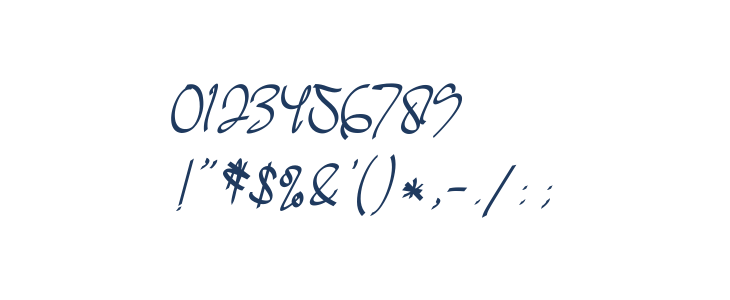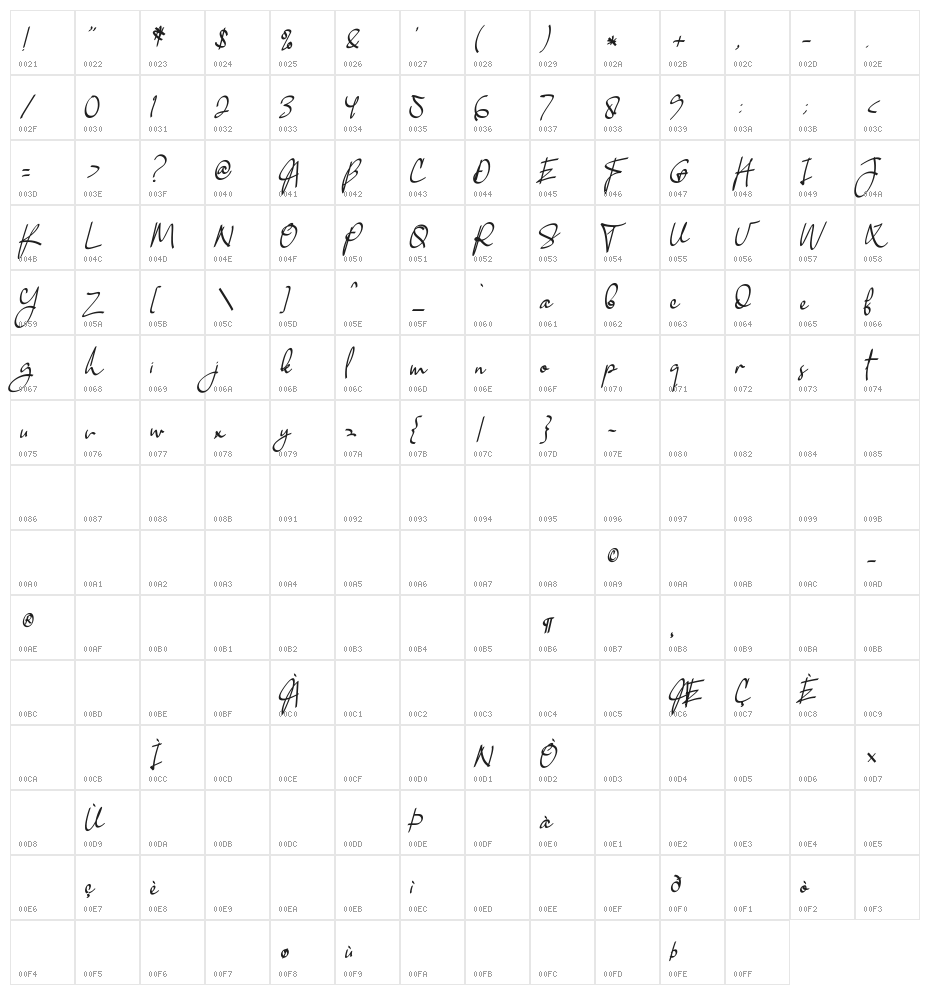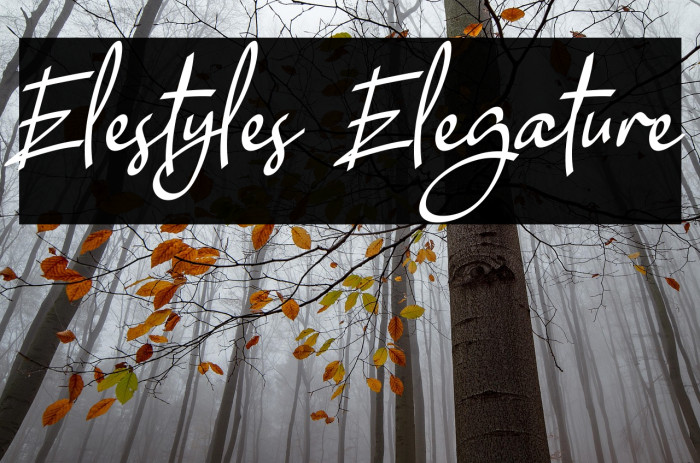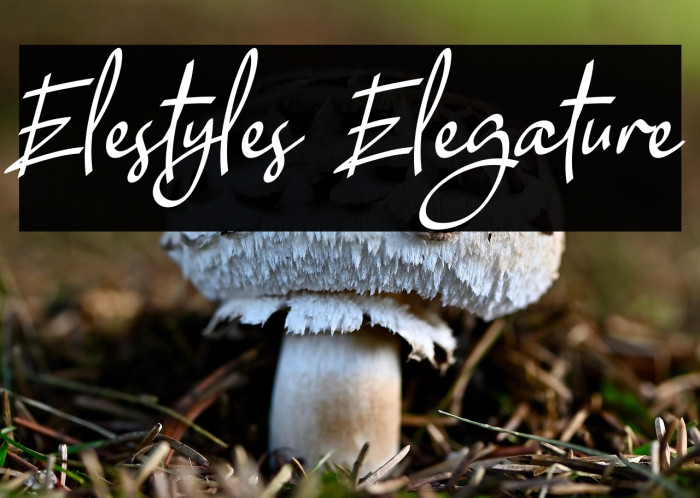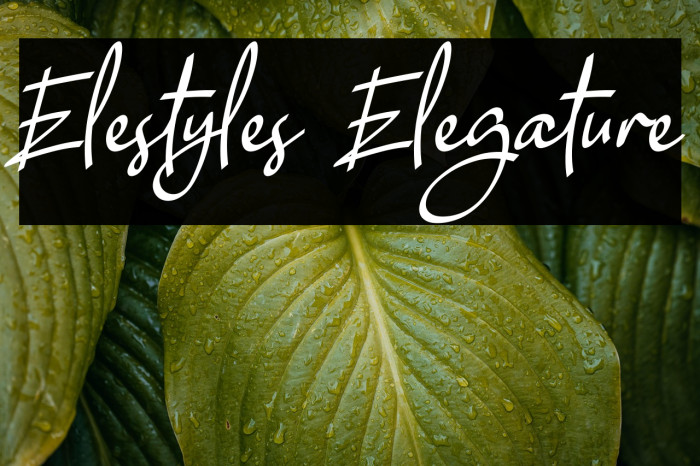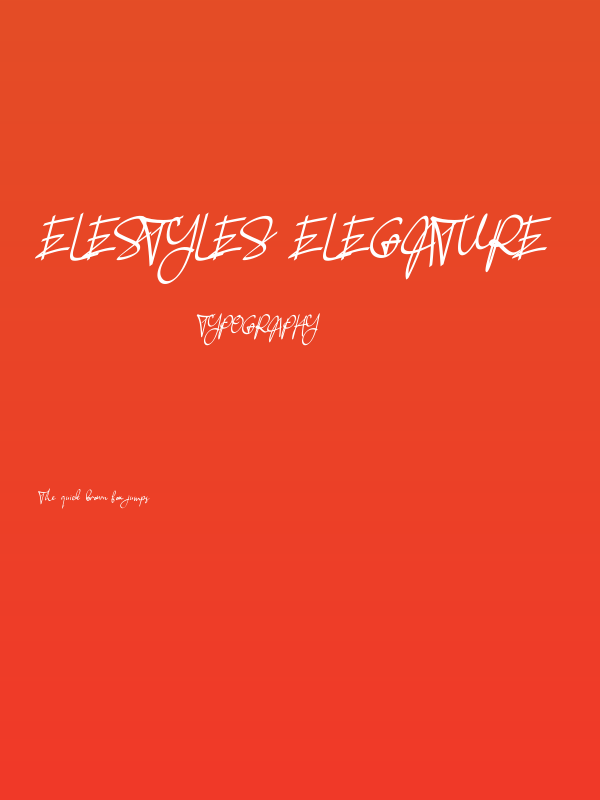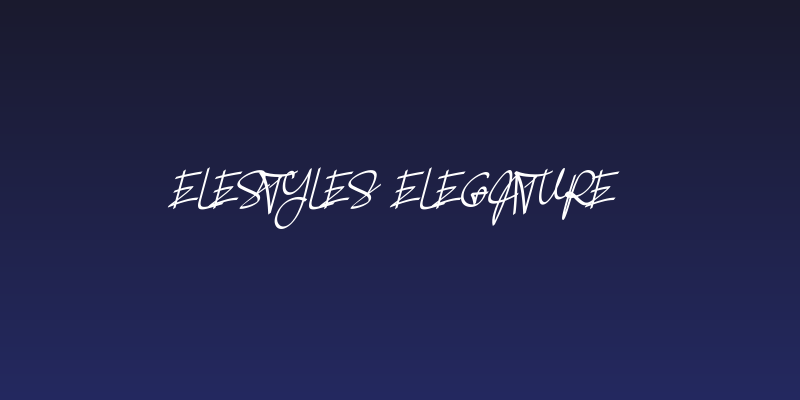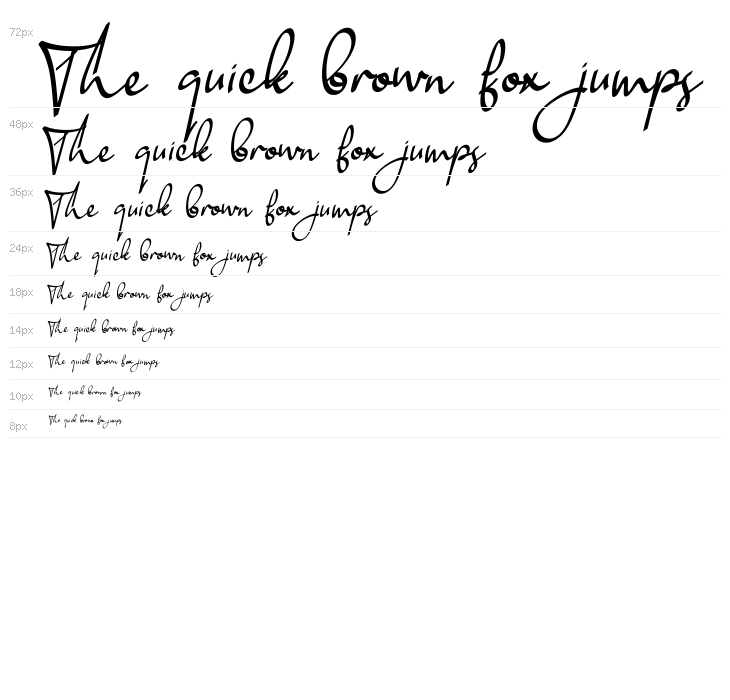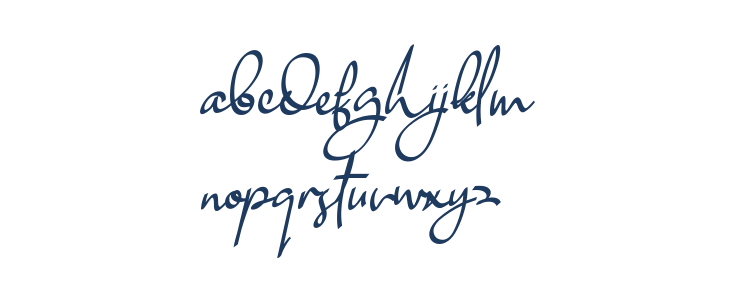
Elestyles Elegature Font
Elestyles Elegature Description
This font exudes a dynamic and expressive style, characterized by its fluid, handwritten appearance. The letters are crafted with a sense of motion, featuring elongated strokes and a slight slant that adds to its energetic feel. The uppercase and lowercase letters maintain a consistent flow, with some characters exhibiting unique loops and curves that enhance its artistic flair. The numerals and special characters are equally stylized, complementing the overall aesthetic. This font is ideal for projects that require a personal touch or a creative edge, such as invitations, branding, or artistic designs.
| Proposed Projects | Ideal for invitations, branding, artistic designs, and projects needing a personal touch. |